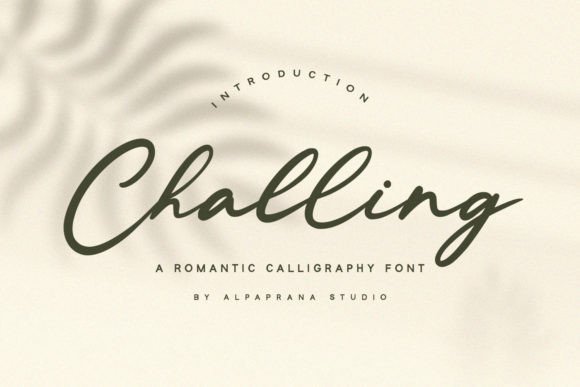
Adding a Touch of Elegance with the Challing Font
There’s something magical about the moment you decide to create something special – a wedding invitation, a heartfelt thank you card, or a logo that perfectly captures a brand’s essence. It’s a moment that calls for something more than just any font, something that whispers ‘elegance’ and ‘whimsy’ at the same time. This is where the Challing Font comes into play, offering a stylish and incredibly elegant script font that’s sure to make your designs stand out.
As a designer, you know the importance of choosing the right font to convey the tone and personality of your project. The Challing Font is a valuable addition to your toolkit, perfect for adding a handwritten touch to your designs. Whether it’s a wedding invitation, a quote, or a business card, this font is sure to leave a lasting impression.
Key Features of “Challing Font”
- Font Family: Challing
- Font Styles: Regular, Bold, Italic, Bold Italic
- Unique Characteristics: Challing font has a unique, handwritten style with a mix of cursive and script elements, making it perfect for creative and artistic designs
Designer Review: Challing Font
Overall, I think Challing Font is a solid addition to any typographer’s toolkit. It’s a beautiful, elegant font that’s perfect for creating a sophisticated, high-end look in your designs.
- Charming, cursive feel that’s perfect for headings and titles
- Excellent for creating a sense of luxury and refinement
- Works well in both print and digital applications
- Includes a wide range of language support and character sets
- Can be difficult to read at very small font sizes
- May not be the best choice for body text, due to its cursive nature
- Lack of bold and italic weights may limit its use in certain situations
Despite these limitations, I think Challing Font is a great choice for designers looking to add some elegance to their work. It’s a versatile font that can be used in a variety of contexts, from high-end branding to elegant typography. With a little care and attention to font size and usage, Challing Font can be a real showstopper in your designs.
To get the most out of the Challing font, try using it in combination with other creative elements, such as bold colors and geometric shapes. You can also experiment with different font sizes and styles to create a unique look.
The Challing font is perfect for:
- Creating eye-catching social media graphics
- Designing unique and creative posters
- Adding a personal touch to your business cards
Alternatives to Challing Font for Designers
Pacifico is a beautiful, elegant script font that is perfect for creating a sophisticated and luxurious look. It’s ideal for use in branding, advertising, and editorial design. Pacifico is a great alternative to Challing Font as it has a similar cursive feel but with a more refined and polished look.
Comparison to Challing Font: Pacifico is more elegant and refined, while Challing Font is more playful and casual.
Great Vibes is a modern, cursive font that is perfect for creating a fun and lively atmosphere. It’s ideal for use in social media, advertising, and web design. Great Vibes is a great alternative to Challing Font as it has a similar playful feel but with a more modern and edgy look.
Comparison to Challing Font: Great Vibes is more modern and edgy, while Challing Font is more classic and traditional.